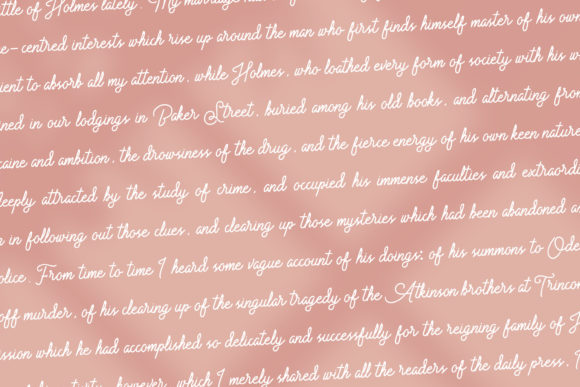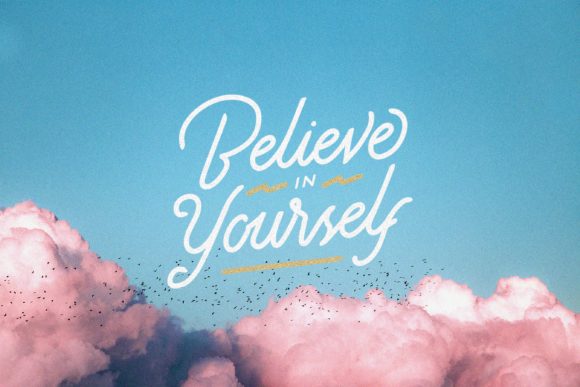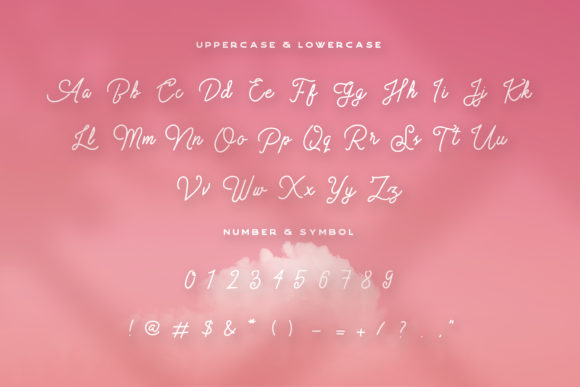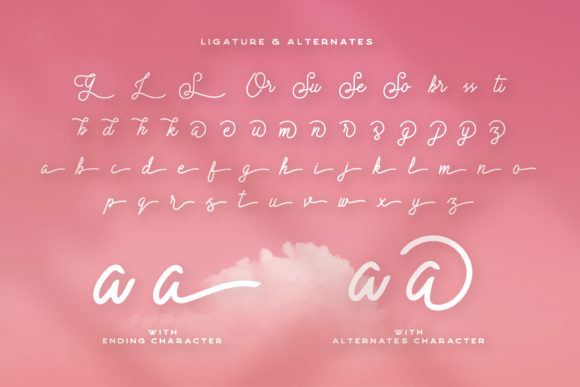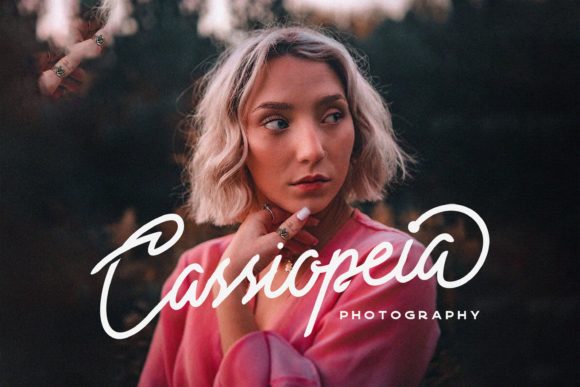
Introducing Andromeda Font: A Timeless Handwritten Masterpiece
Are you a designer or crafter looking for a font that will elevate your creative projects to the next level? Look no further than Andromeda Font, a modern and flowing handwritten font that is sure to capture your heart. With its incredibly distinct and timeless style, Andromeda Font is the perfect choice for anyone seeking to add a touch of elegance and sophistication to their designs.
The Unique Charm of Andromeda Font
Andromeda Font boasts a unique and captivating charm that sets it apart from other fonts. Its flowing, handwritten style is both modern and classic, making it an excellent choice for a wide range of design projects. Whether you’re creating a logo, branding materials, or digital content, Andromeda Font is sure to make a lasting impression. Its distinct style is characterized by beautiful swashes and glyphs, which add a touch of whimsy and flair to any design.
One of the standout features of Andromeda Font is its PUA (Private Use Area) encoding. This means that you can easily access all of the font’s glyphs and swashes, giving you maximum creative flexibility. With PUA encoding, you can effortlessly navigate the font’s extensive character set, allowing you to craft unique and eye-catching designs with ease. Whether you’re a seasoned designer or a crafty DIY enthusiast, Andromeda Font’s PUA encoding makes it simple to unlock the full potential of this stunning font.
Endless Design Possibilities with Andromeda Font
Andromeda Font is an incredibly versatile font that can be used in a wide range of design applications. Here are just a few ideas to get you started:
- Logos and Branding: Create a memorable and impactful logo that showcases your brand’s personality and style.
- Digital Content: Add a touch of elegance to your blog posts, social media graphics, and email newsletters.
- Print Materials: Use Andromeda Font to create stunning business cards, brochures, and flyers.
- Crafting and Scrapbooking: Add a personal touch to your DIY projects, such as handmade cards and scrapbook pages.
Tips for Getting the Most Out of Andromeda Font
To truly make the most of Andromeda Font, here are a few tips to keep in mind:
- Experiment with Swashes: Don’t be afraid to get creative with the font’s swashes and glyphs. They can add a beautiful touch to your designs and help you create something truly unique.
- Mix and Match: Combine Andromeda Font with other fonts to create a striking contrast and add visual interest to your designs.
- Play with Color: Andromeda Font looks stunning in a range of colors. Experiment with different hues and shades to find the perfect combination for your design.
In conclusion, Andromeda Font is a truly exceptional handwritten font that is sure to capture the hearts of designers and crafters alike. With its unique charm, PUA encoding, and endless design possibilities, it’s the perfect choice for anyone seeking to add a touch of elegance and sophistication to their creative projects. So why wait? Fall in love with Andromeda Font and start creating spectacular designs today!